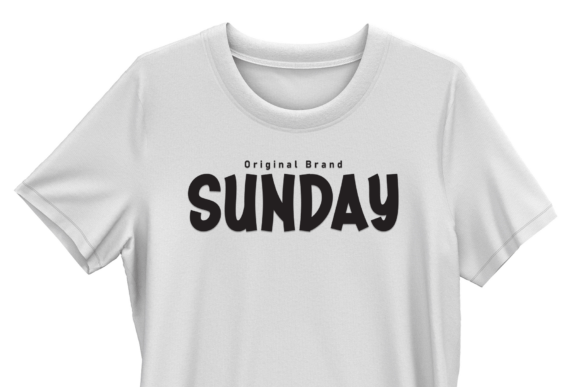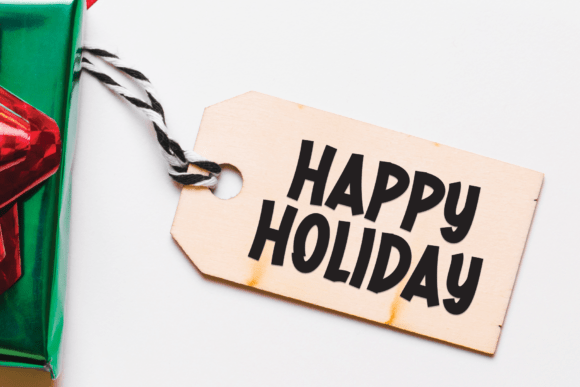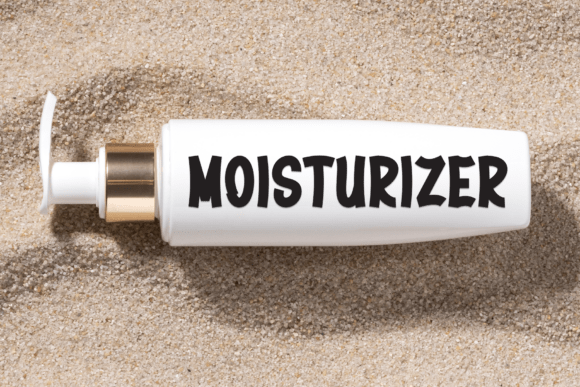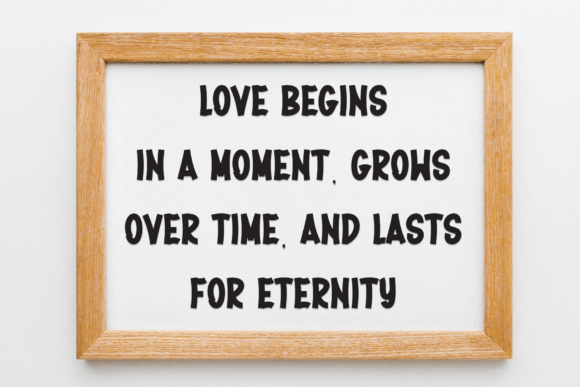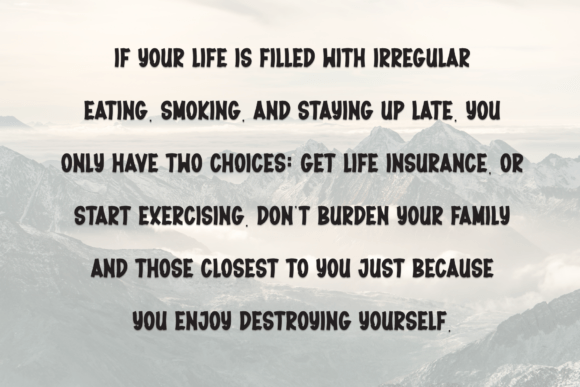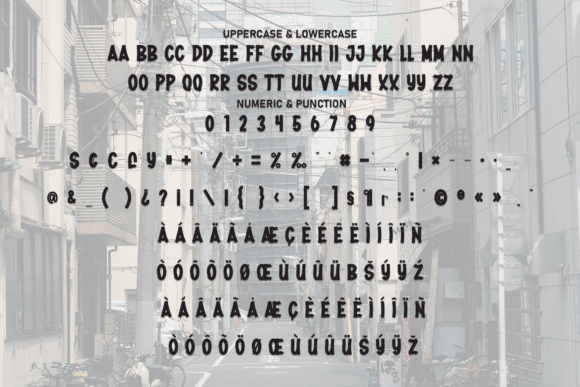
Unleashing the Power of Doodle Street Font
Have you ever found yourself in a creative jam, staring at a blank canvas with a blank mind? The cursor blinks, and the pressure builds, but nothing seems to spark the idea you need to bring your project to life. It’s moments like these that a trusted design resource can be a lifesaver. For designers and creatives, a high-quality font can be the difference between a mediocre design and a showstopper. Enter the Doodle Street Font, a game-changing display font that embodies the raw, hand-sculpted energy of street art.
This exceptional font is more than just a design element – it’s a statement piece that can elevate your creative project from good to great. With its massive, blocky letterforms and organic terminals, the Doodle Street Font is perfect for urban lifestyle branding, creative agency logos, and high-impact editorial headers. And the best part? It’s available for free download, making it an accessible design asset for designers of all levels.
Key Features of Doodle Street Font
- High-quality, hand-drawn design suitable for creative projects and illustrations.
- Unique, playful style with a mix of doodle and street art elements, perfect for adding a creative touch to your designs.
Honest Review: Doodle Street Font
As a designer, I’ve come across my fair share of fonts, but the Doodle Street Font caught my attention. This design resource offers a unique blend of whimsy and sophistication that can elevate any creative project. The font is available for free download, making it a great option for designers on a budget.
- ✨ High-quality design: The Doodle Street Font features crisp, clean lines and a transparent background, making it perfect for overlaying on images or backgrounds.
- ✨ Versatile: This font can be used for a variety of creative projects, from children’s books to advertising campaigns.
- ⚠️ Limited customization options: While the font itself is beautiful, there are limited customization options available for users.
- ⚠️ Not ideal for formal documents: The Doodle Street Font is best suited for creative projects and may not be the best choice for formal documents or resumes.
Overall, I’m impressed with the Doodle Street Font and would recommend it to designers looking for a unique and high-quality font for their creative projects. Just be aware of its limitations and use it accordingly.
Tips for Getting the Most Out of Doodle Street Font
Use the Doodle Street Font with a transparent background to give your design a unique look. Experiment with different font sizes and colors to create a visually appealing design. This font is also great for creating high-quality designs that require a personal touch.
The Doodle Street Font is commonly used for creative projects such as:
- Infographics and charts
- Business presentations and reports
Alternatives to Doodle Street Font
Sketchnoting Font
The Sketchnoting Font is a free, high-quality font designed for creative projects, such as illustrations, infographics, and presentations. It features a transparent background, making it perfect for overlaying on images or backgrounds. Use this font when you need to add a touch of whimsy and playfulness to your design. It compares to Doodle Street Font in terms of its casual and hand-drawn feel, but with a more refined and polished look.
Chalkboard Pro Font
The Chalkboard Pro Font is a versatile design resource that can be used for a variety of projects, from educational materials to advertisements. It has a high-quality, handwritten feel and can be used with a transparent background for a clean and modern look. Use this font when you need to convey a sense of informality and approachability. It compares to Doodle Street Font in terms of its casual, handwritten feel, but with a more formal and professional tone.